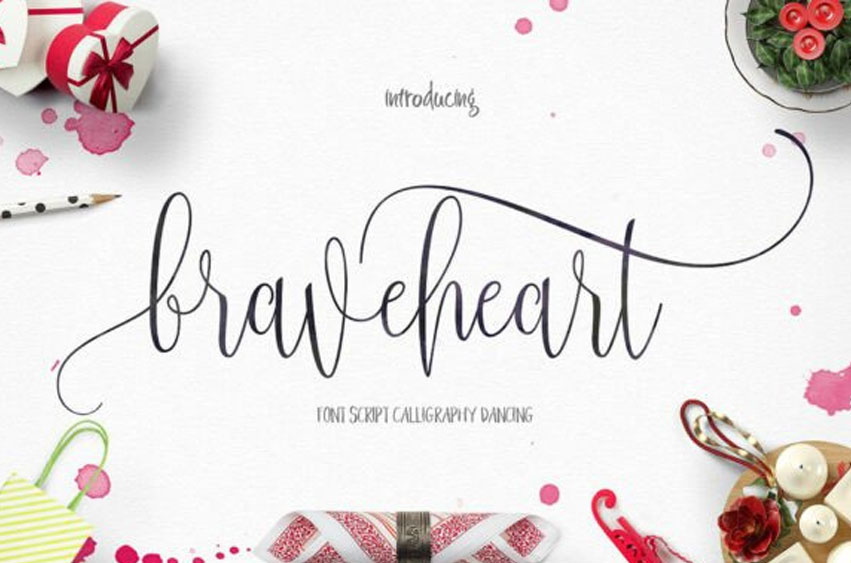
Braveheart Font is an elegant and lively script font. It features extremely delicate, thin-weight strokes characterized by long, expressive flourishes that sweep dramatically above and below the baseline. The letterforms have a rhythmic, interconnected flow that mimics a graceful, hand-inked dancing motion.
This typeface is an ideal choice for high-end wedding invitations, romantic stationery, luxury branding, and sophisticated editorial layouts where a “smart” and poetic handwritten touch is needed.